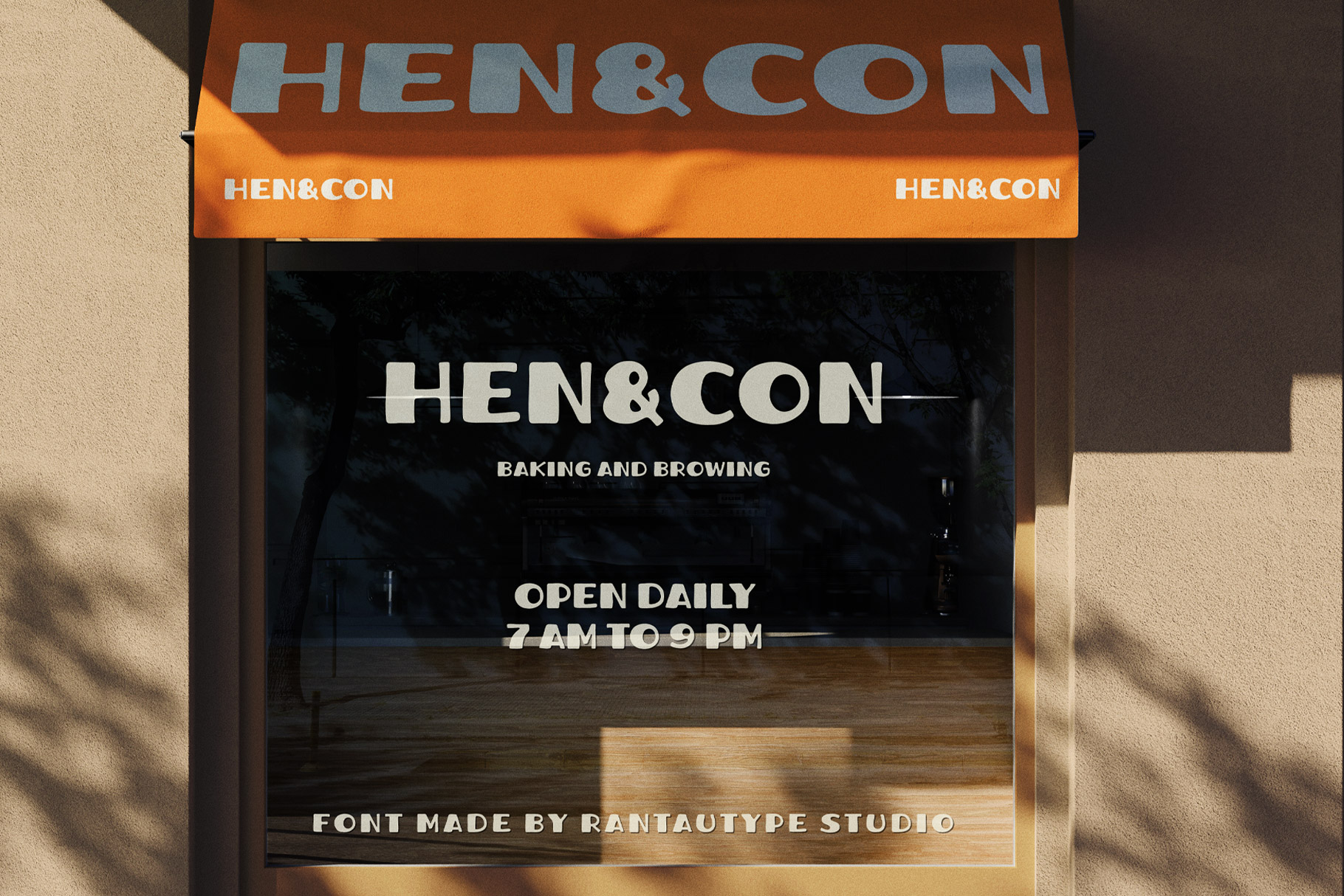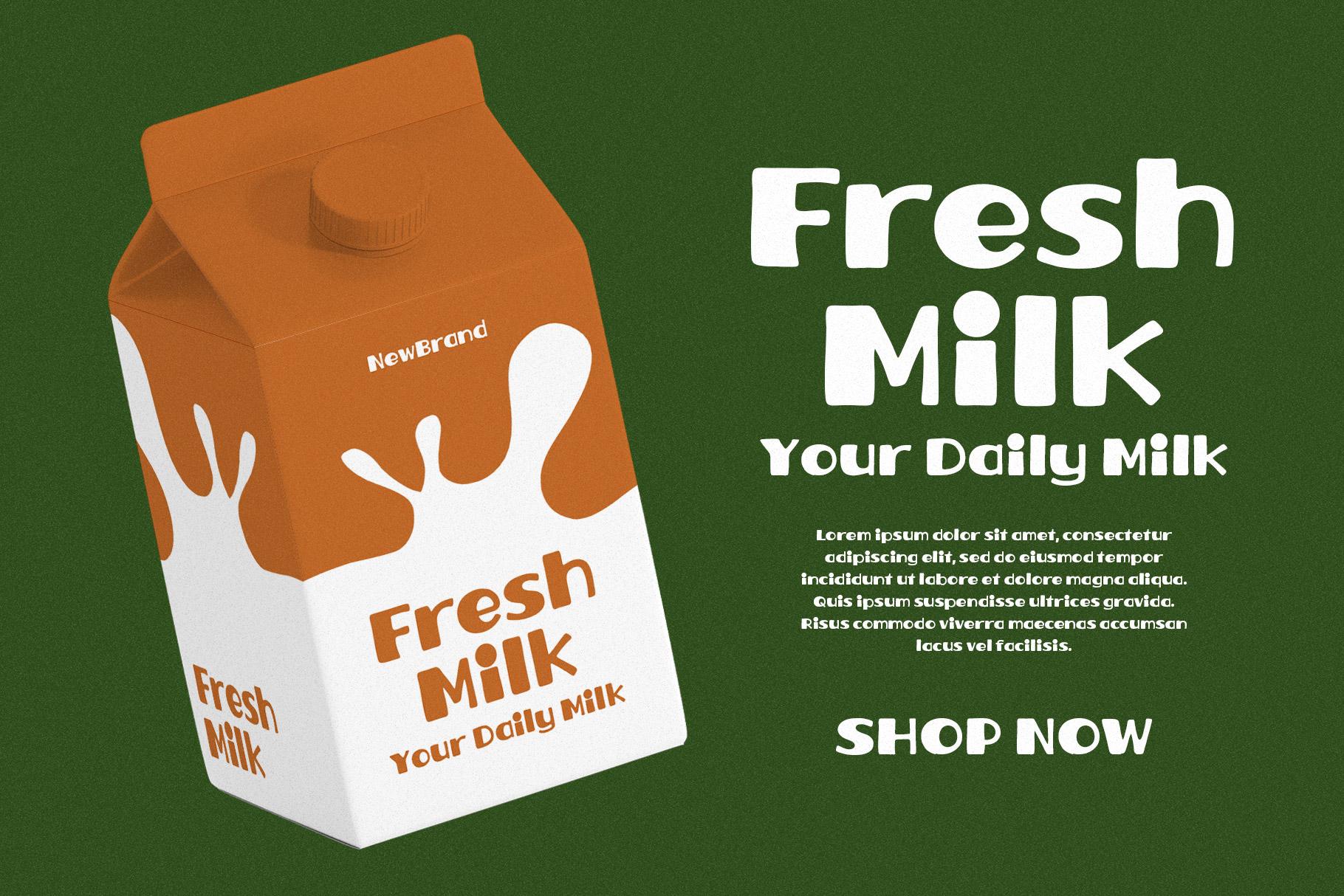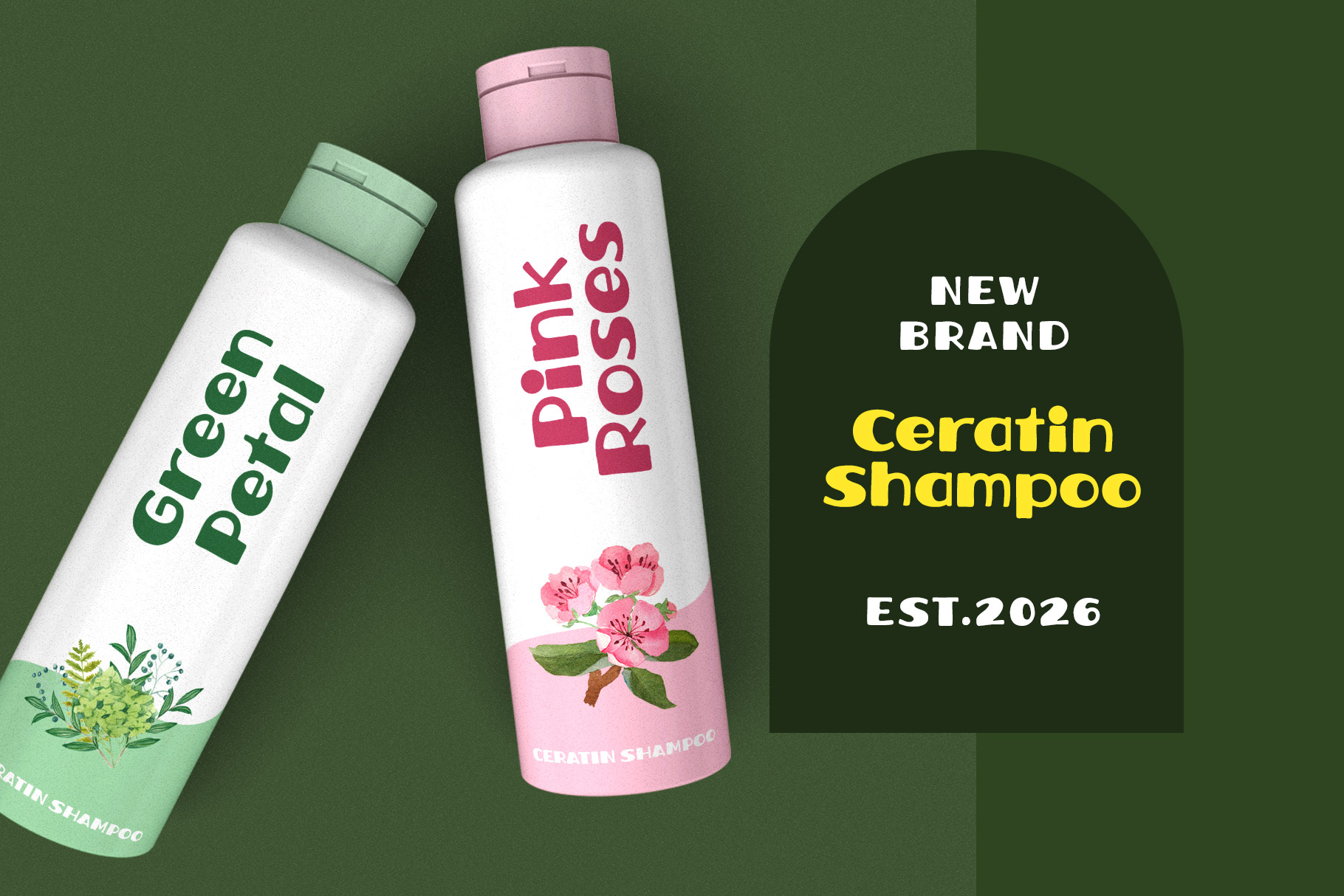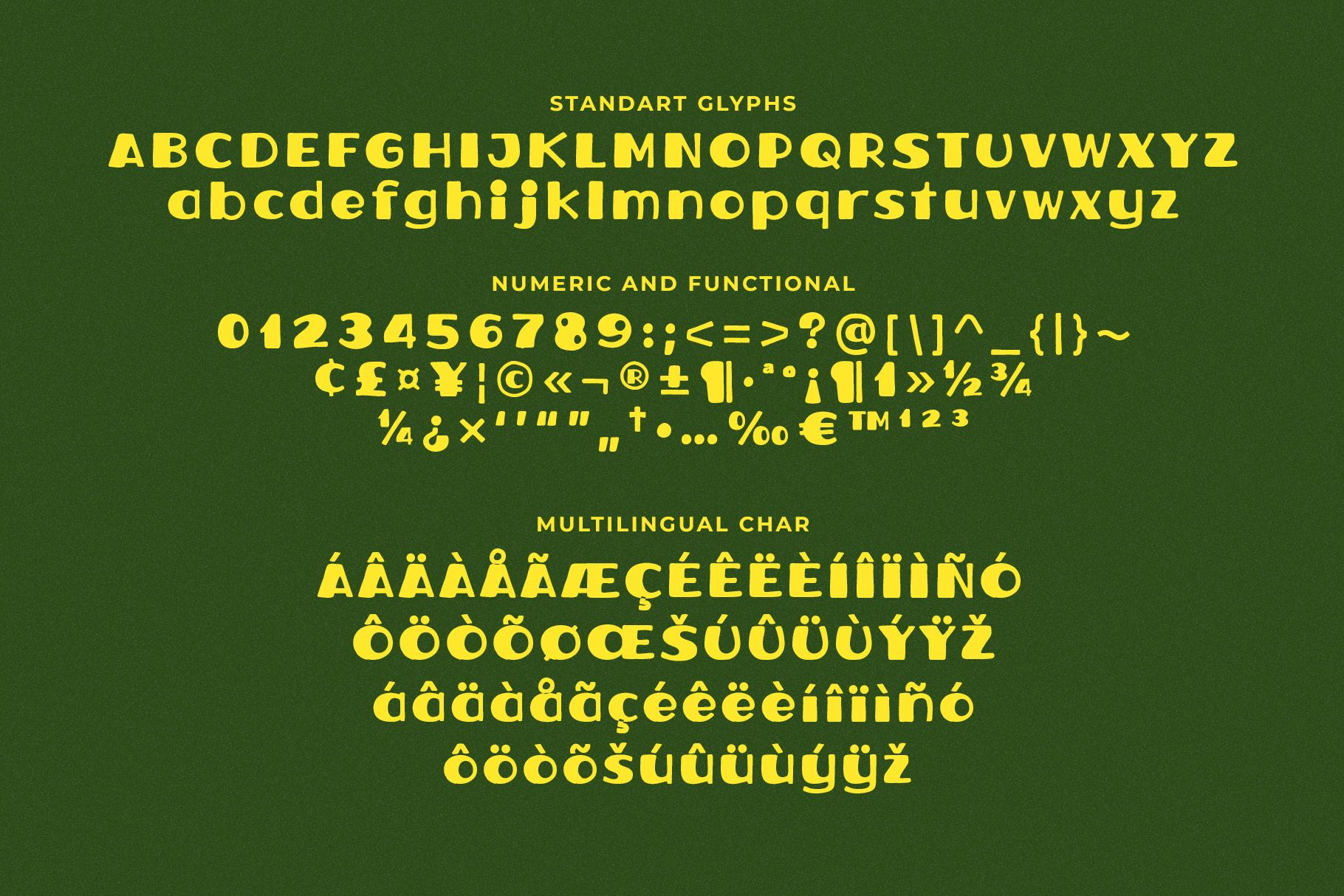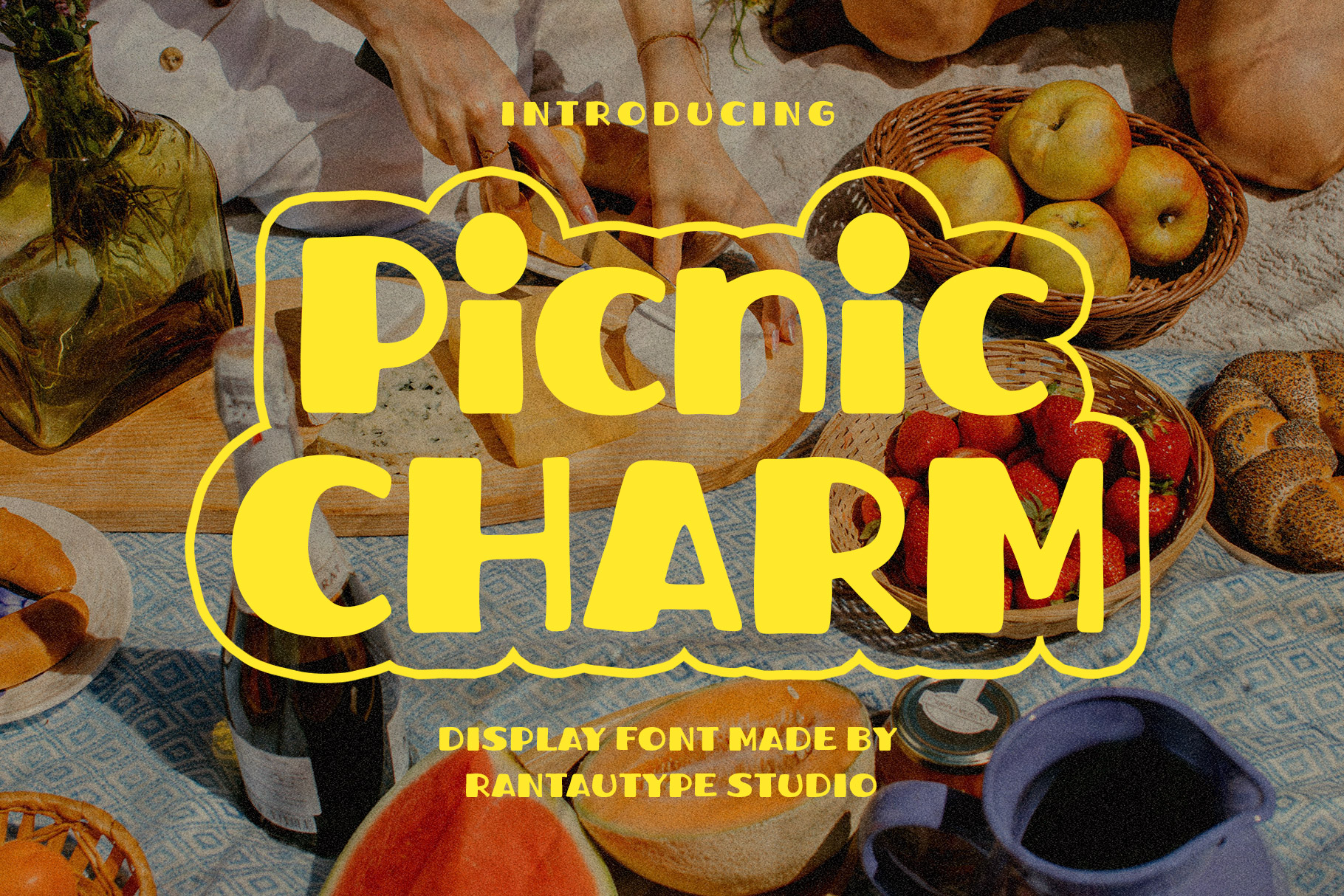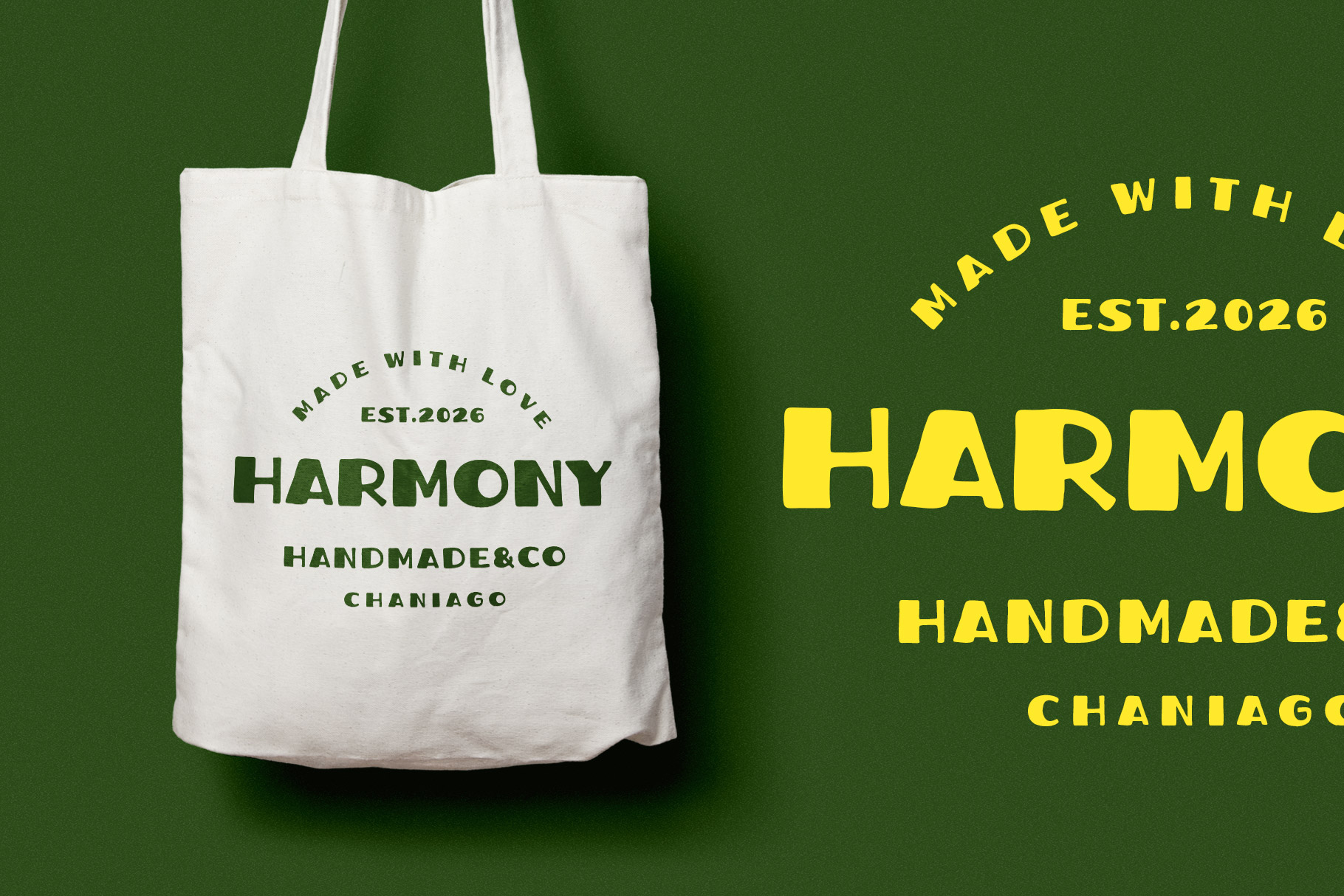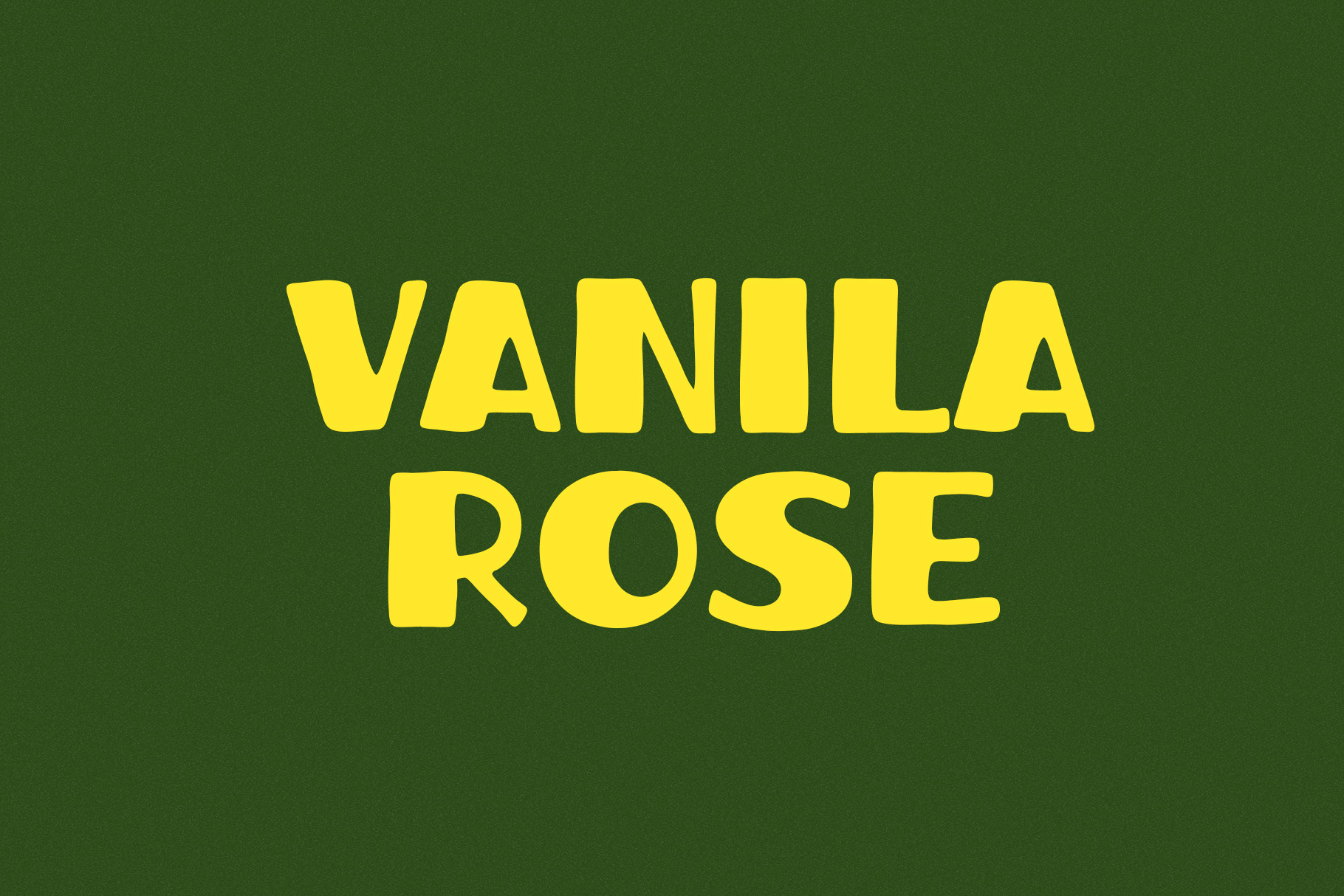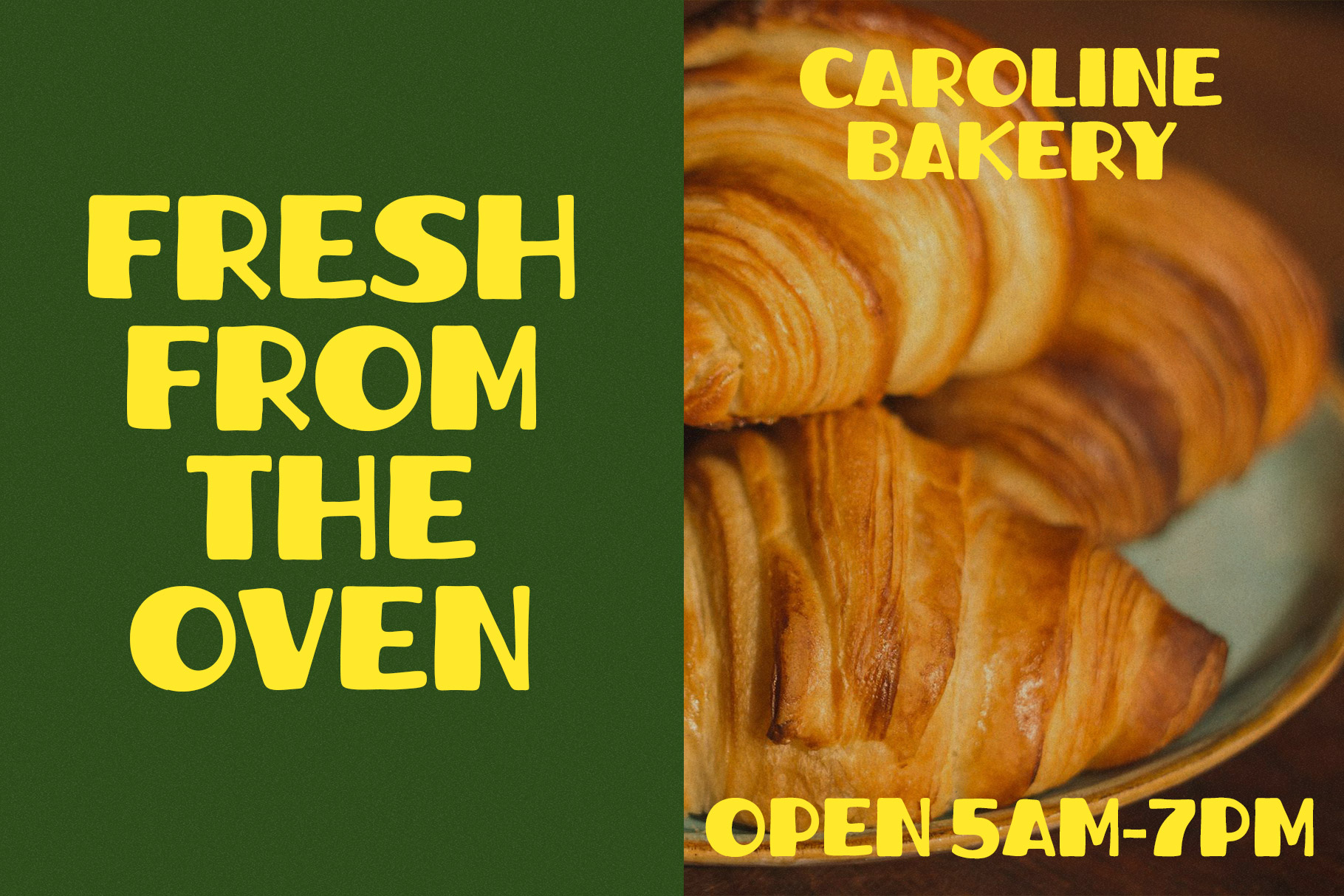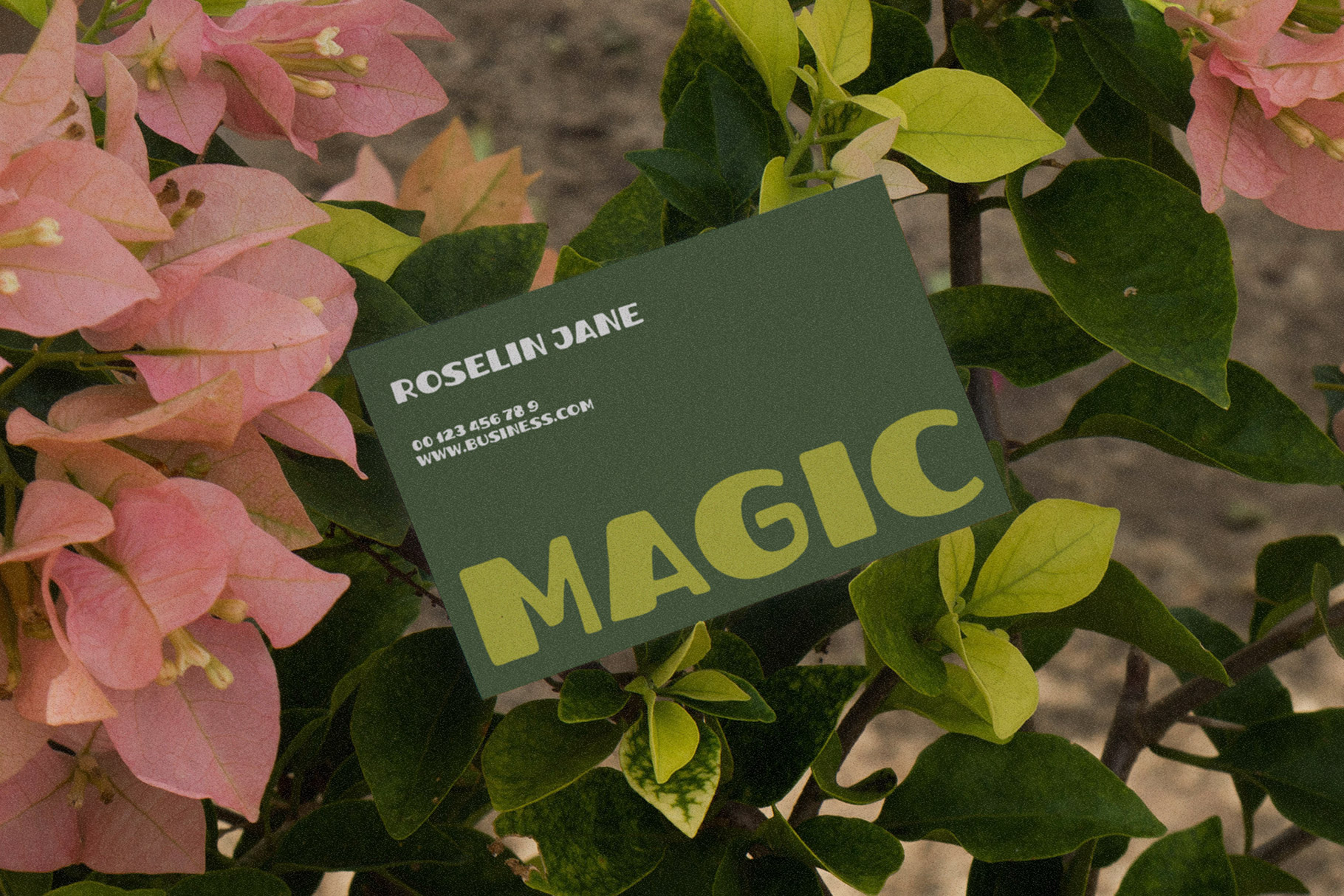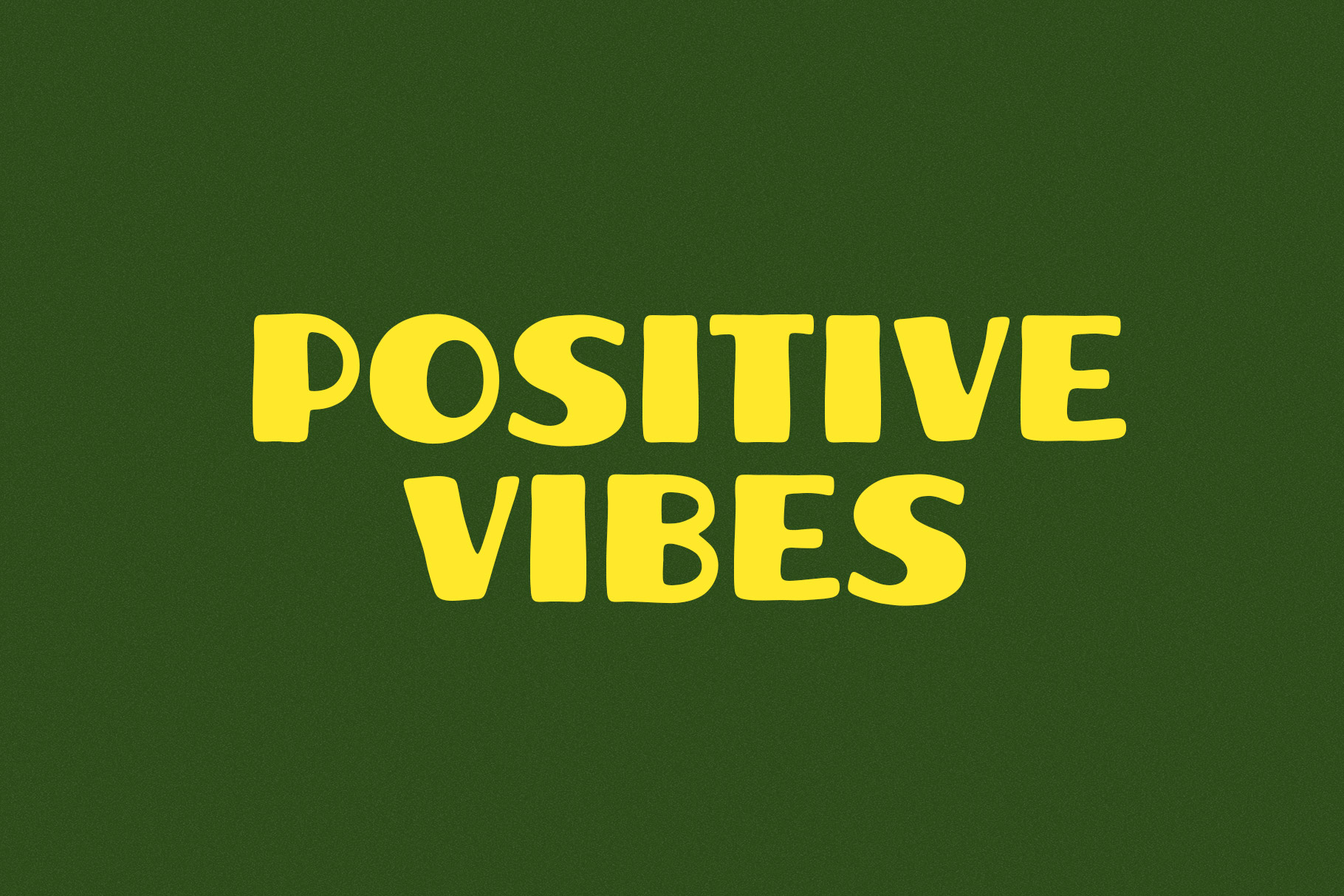
Picnic Charm Display Font
Picnic Charm is display font made by rantautype studio. Picnic Charm is a perfectly choice for any creative endeavor, creating, modern, lifestyle design such as logotype, title, cover, branding, invitations, wedding designs, display and magazine, social media posts, advertisements, printed quotes, product packaging, corporate brand, product designs, labels, photography, watermarks, special events and any other project with modern touch.